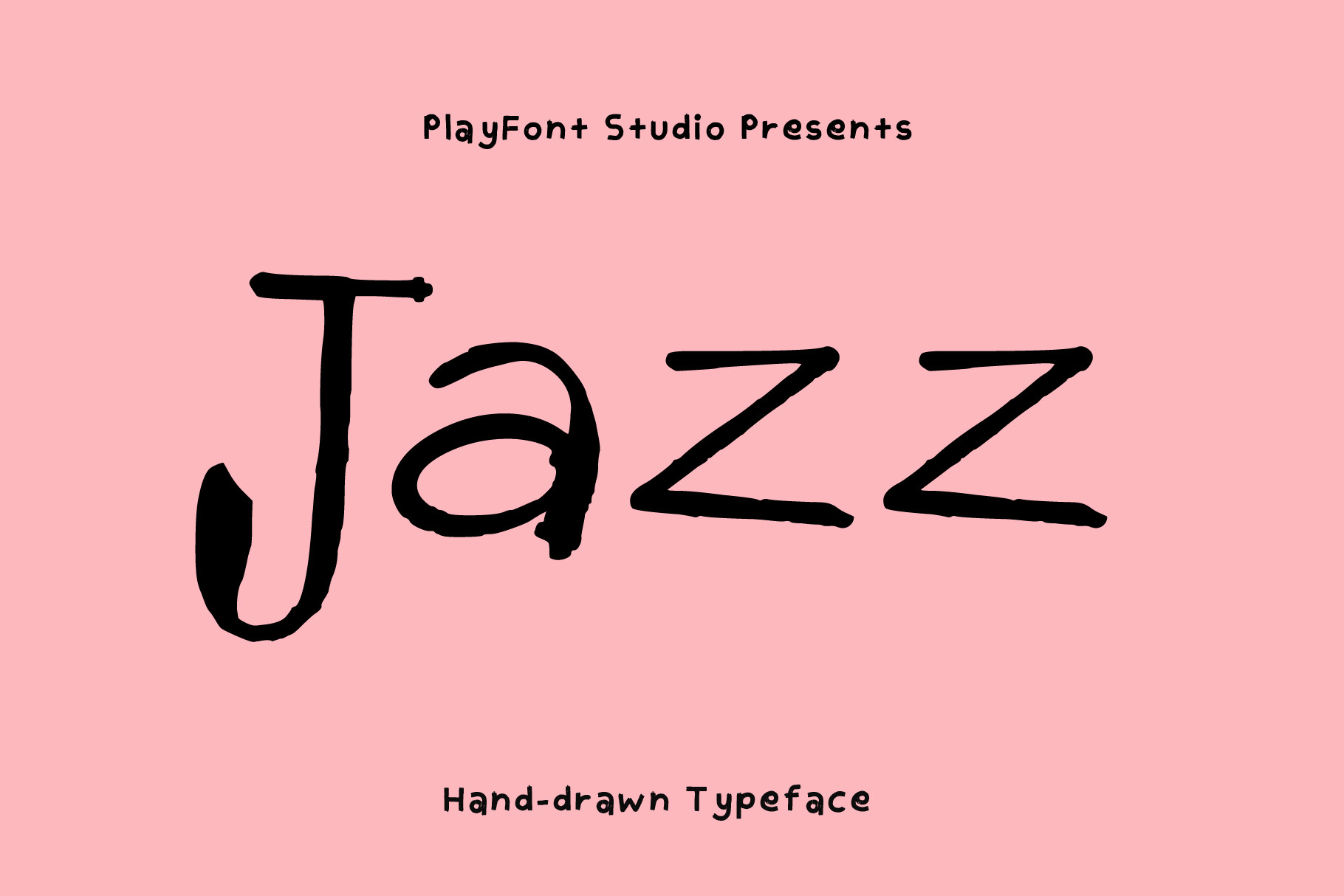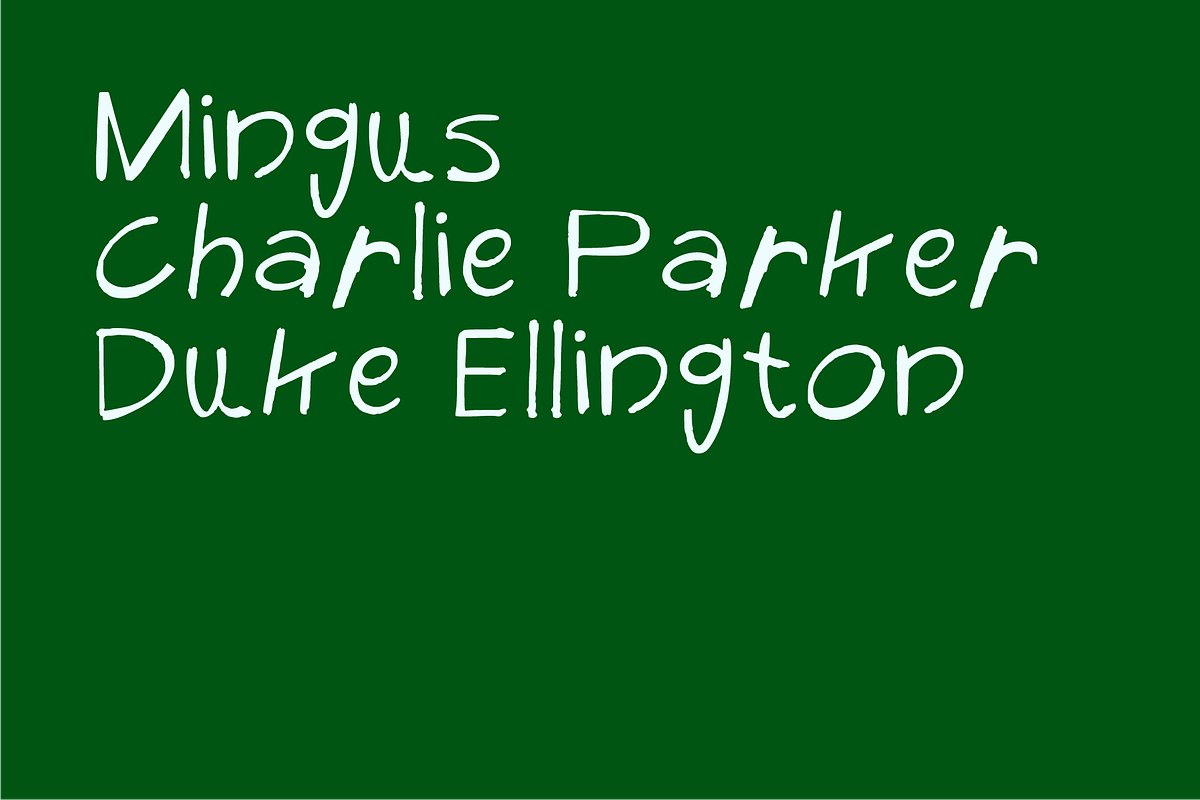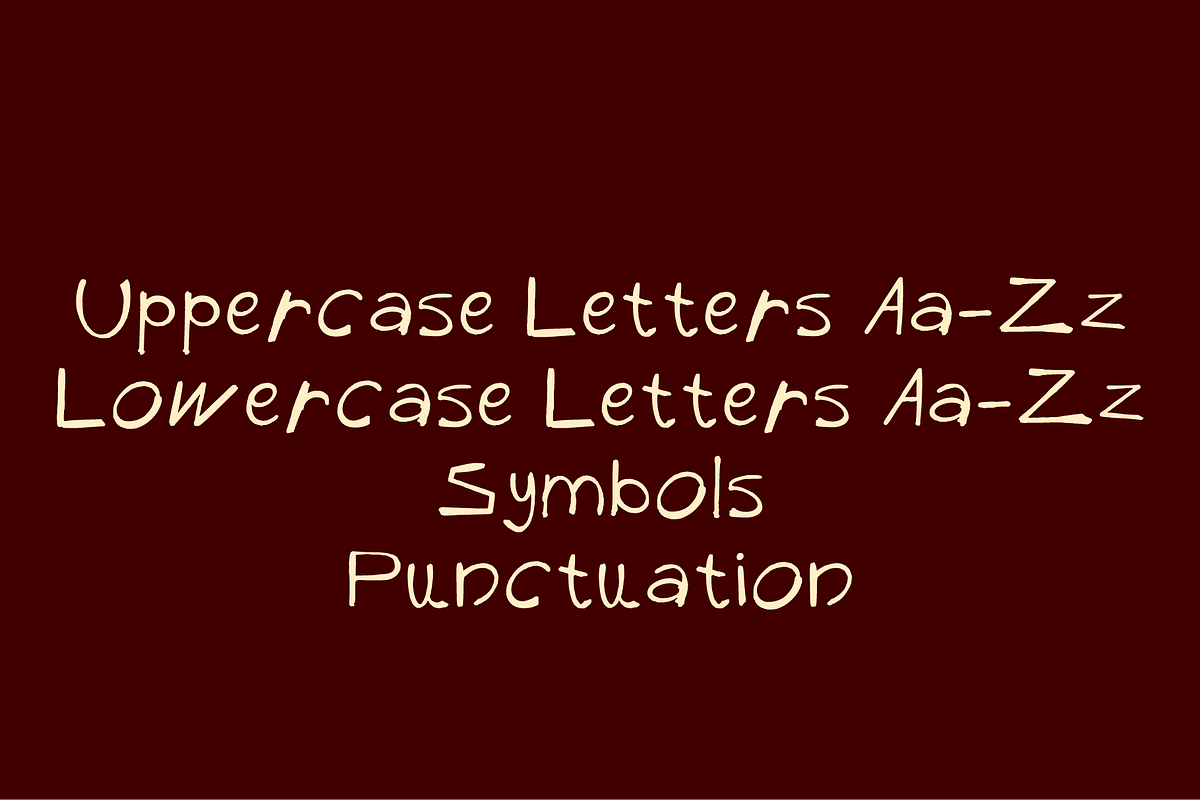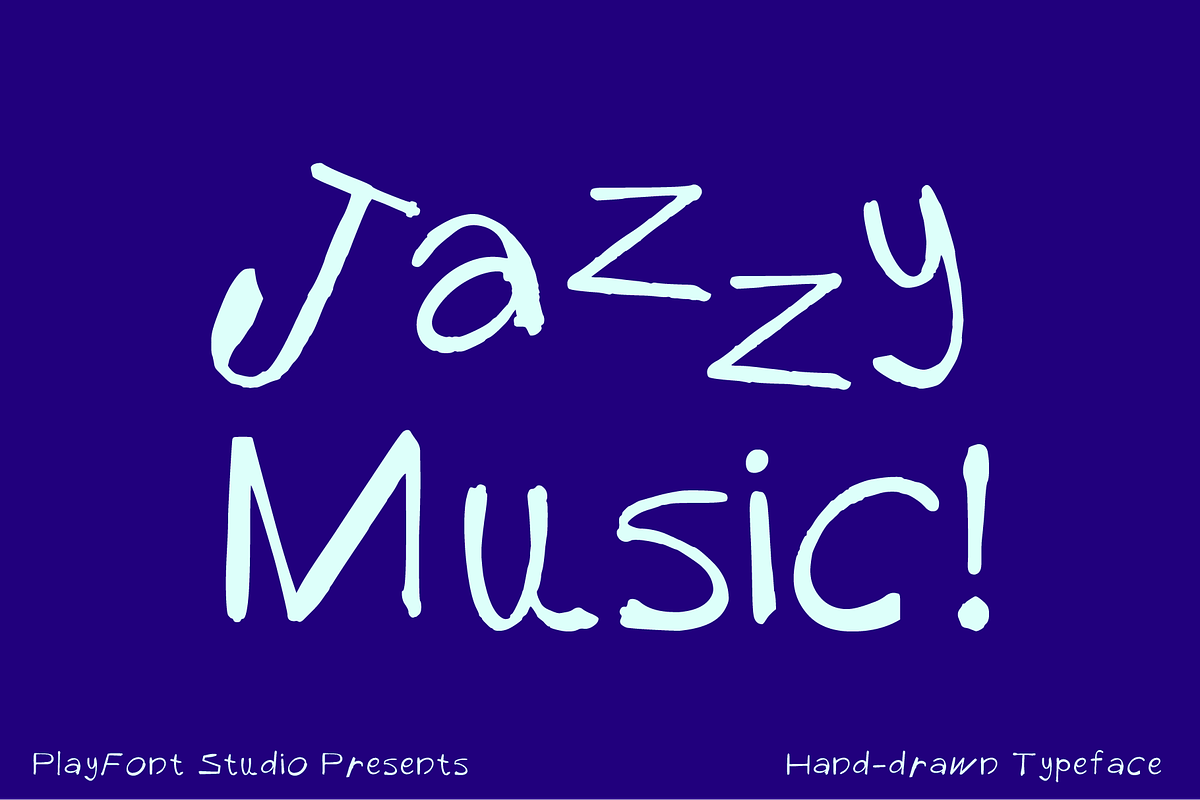
Jazz - A Musical Hand-drawn Typeface
Jazz moves. And so does this font.
Loose, expressive, and full of rhythm - Jazz is a hand-drawn typeface designed for music brands, event promotion, and creative projects that want to feel alive on the page. It captures the improvisational spirit of the music it's named after, making it equally at home on a club poster or a cocktail menu.
- Music event posters & gig flyers
- Bar, restaurant & cocktail menu branding
- Music festival branding & merchandise
- Creative agency branding & proposals
- Album artwork & artist branding
- Lifestyle brand identity
- Full uppercase & lowercase character set
Give your project the kind of energy that only a truly handmade font can bring.